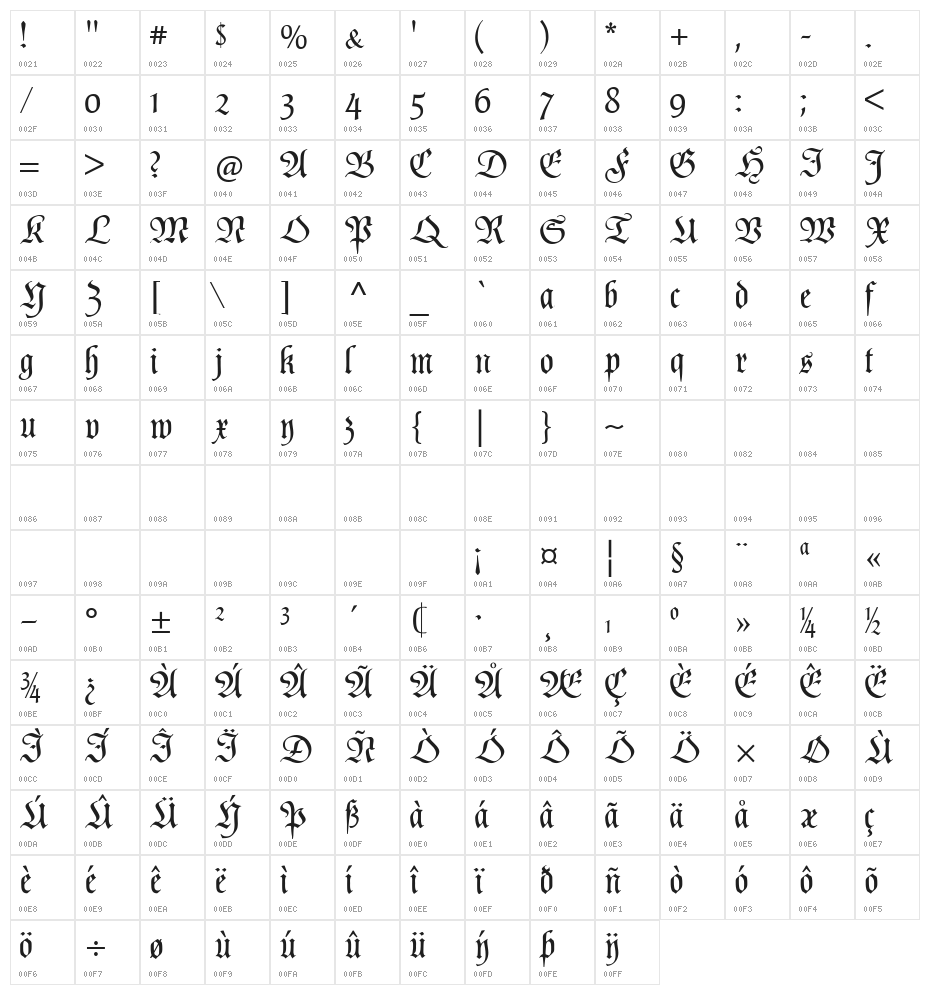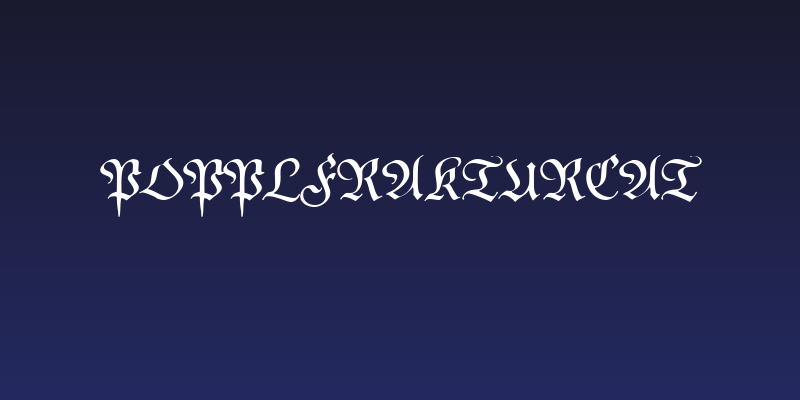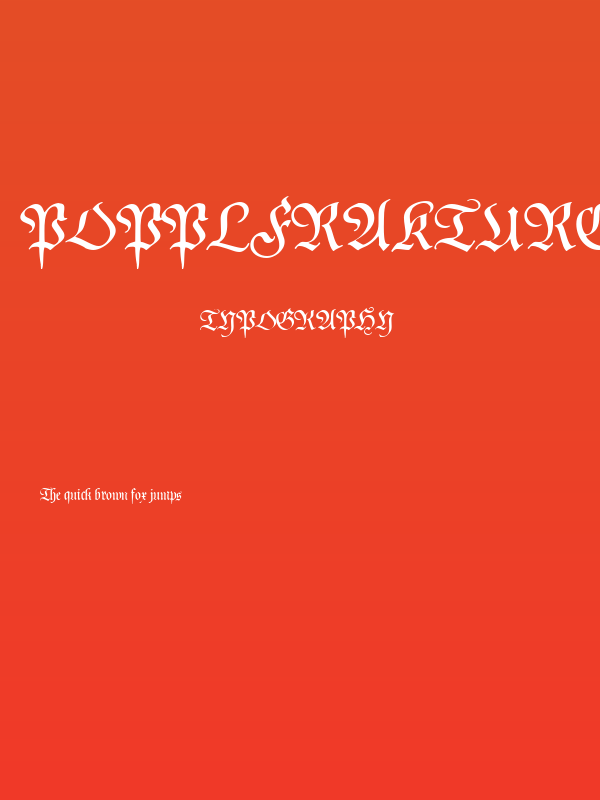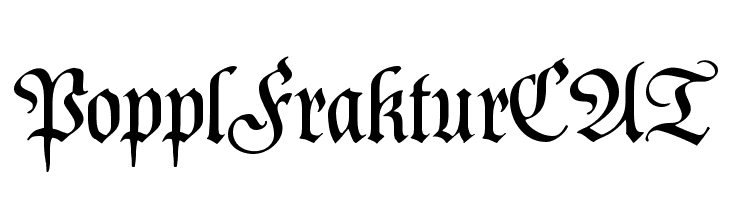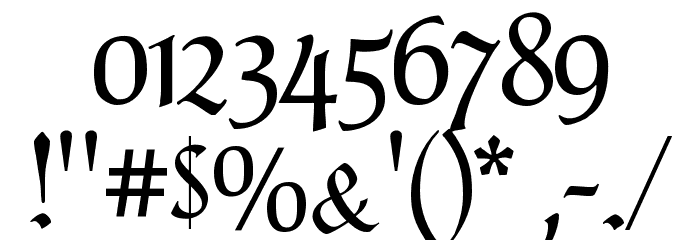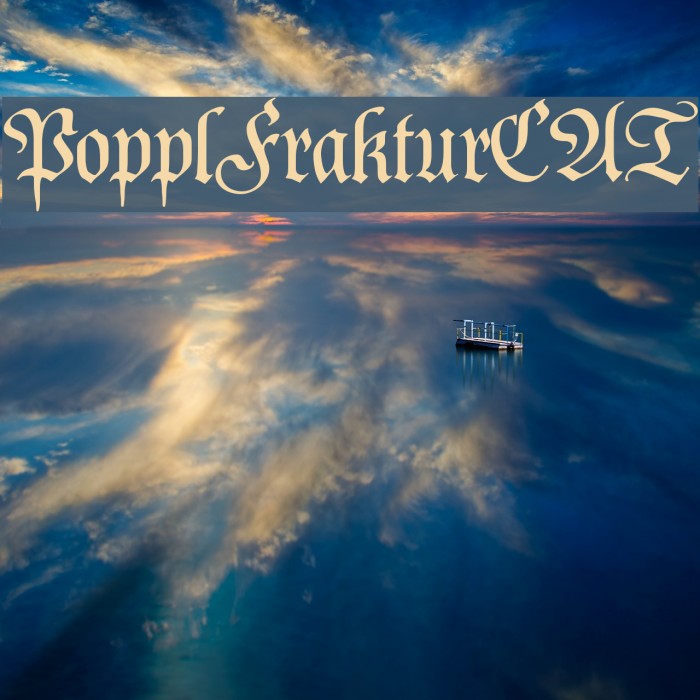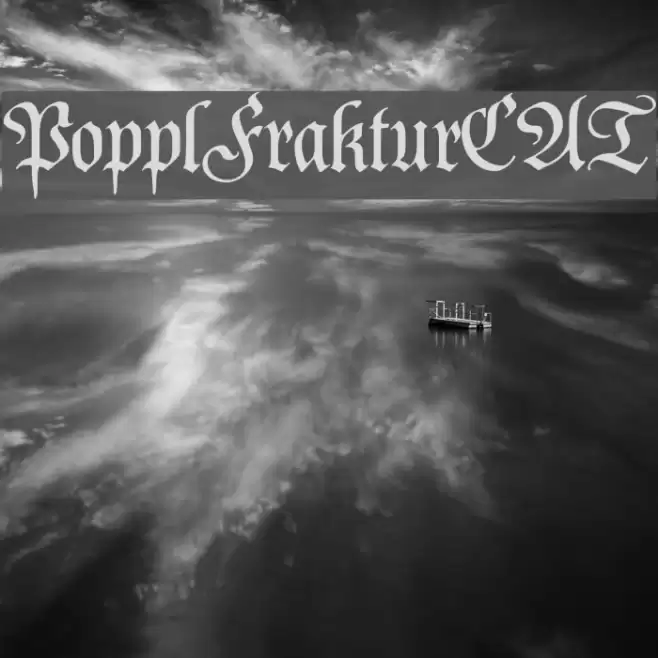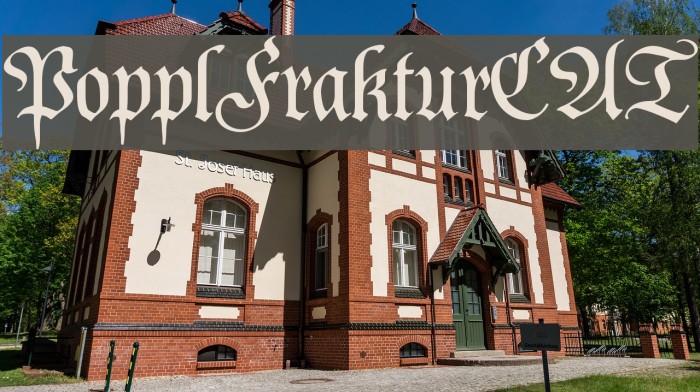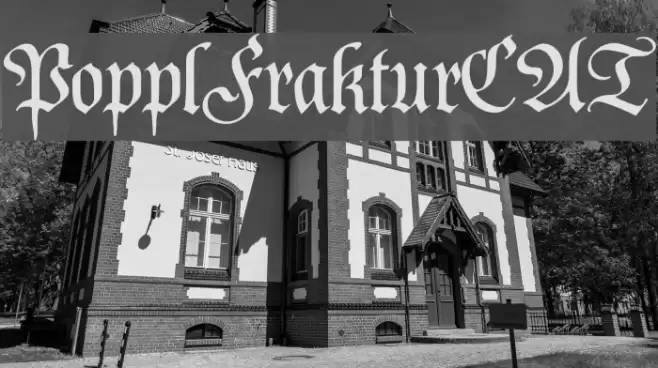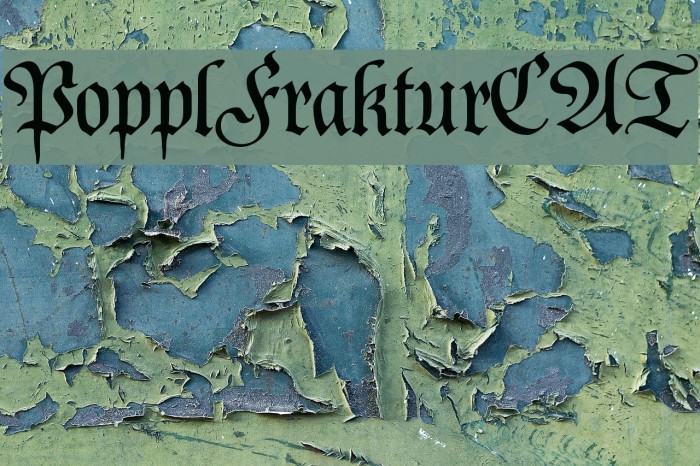
PopplFrakturCAT Font
PopplFrakturCAT Description
This font exudes a classic and historical charm, characterized by its intricate and ornate design. The letters are crafted with a distinct Gothic influence, featuring sharp angles and elaborate curves that give it a majestic and formal appearance. The uppercase letters are particularly striking, with their bold and commanding presence, while the lowercase letters maintain a consistent style that complements the overall aesthetic. The numbers and special characters are designed to match the elaborate style of the alphabet, ensuring a cohesive look across all text. This font is perfect for projects that require a touch of elegance and tradition.
| Overall Style | Classic |
| Use Case | Headlines, Logos, Decorative text |
| Proposed Projects | Ideal for historical documents, wedding invitations, certificates, and branding that requires a traditional and elegant touch. |